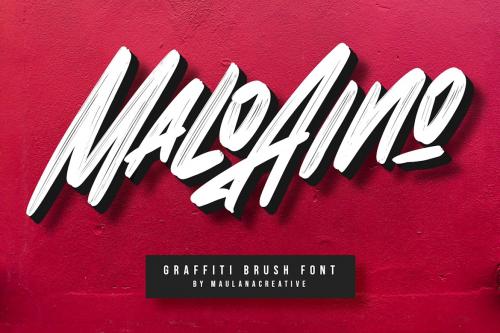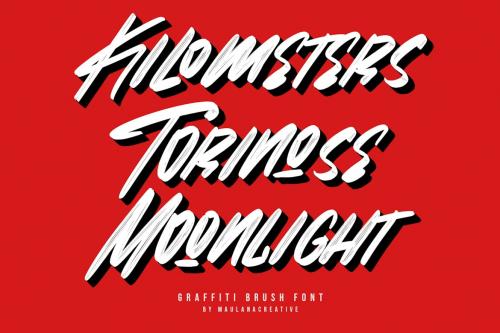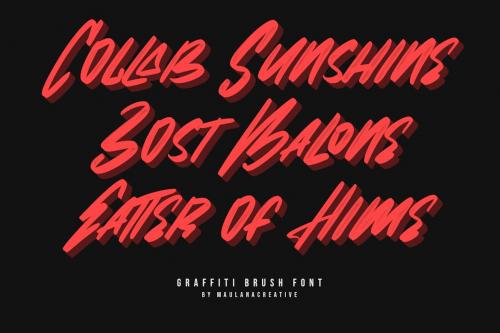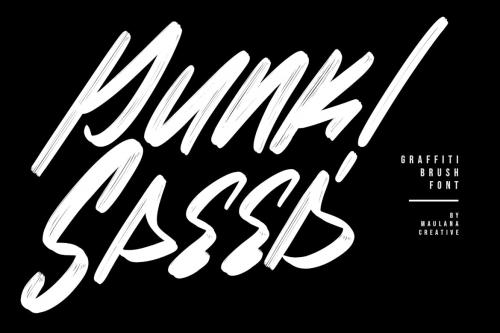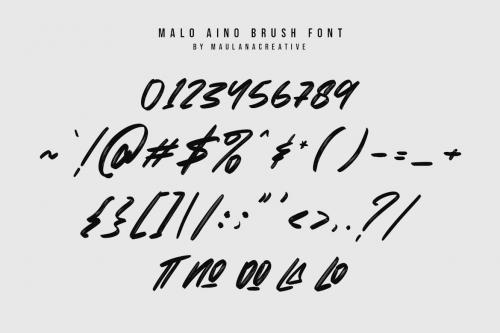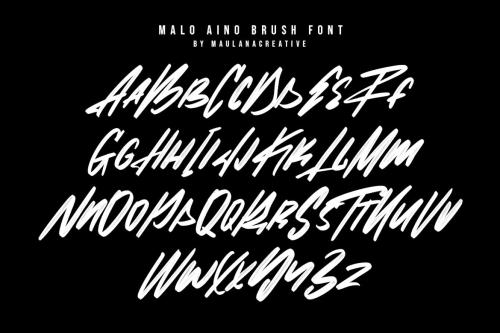
马洛·艾诺涂鸦笔字体
Malo Aino Graffiti Brush Font
Give your designs an authentic handcrafted feel. "Malo Aino Graffiti Brush Font" is perfectly suited to signature, stationery, logo, typography quotes, magazine or book cover, website header, clothing, branding, packaging design and more.
- Ligatures
- Multilingual Support